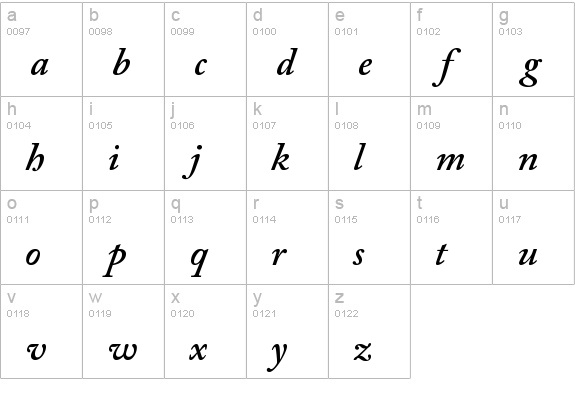
Adobe Caslon Pro Semibold Italic Font Details
Adobe Caslon Pro Semibold Italic is a sub-bold, structured, italic variant in the Adobe typeface family \xE2\x80\x94 well suited to sub-headlines and emphasised passages.
Adobe Caslon Pro Semibold Italic is a classic and elegant typeface that exudes sophistication and professionalism. With its generous curves and subtle serifs, this font strikes the perfect balance between traditional and modern design elements. The semibold weight adds a touch of boldness and emphasis to any text, making it ideal for headlines, subheadings, and other important content. This versatile font is perfect for a wide range of design projects, from print materials such as magazines and brochures to digital content like websites and social media graphics. Its italicized style adds a touch of flair and emphasis, making it a great choice for adding emphasis or creating a sense of style in your designs. Best of all, Adobe Caslon Pro Semibold Italic is freely available to download at FontsMarket.com. Whether you're a professional designer looking for a reliable font for your projects or a hobbyist looking to enhance your creations, this font is a valuable addition to your typographic toolkit. Download Adobe Caslon Pro Semibold Italic today and elevate your designs with its timeless elegance and versatility.